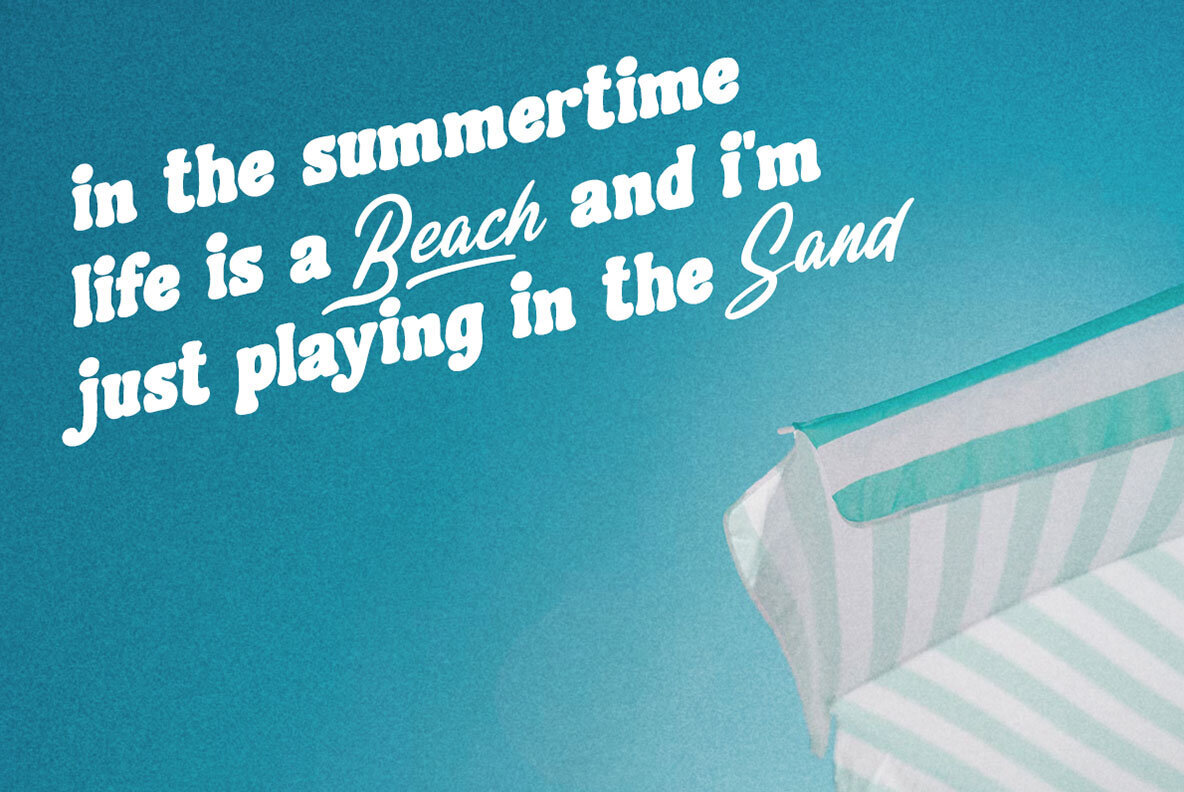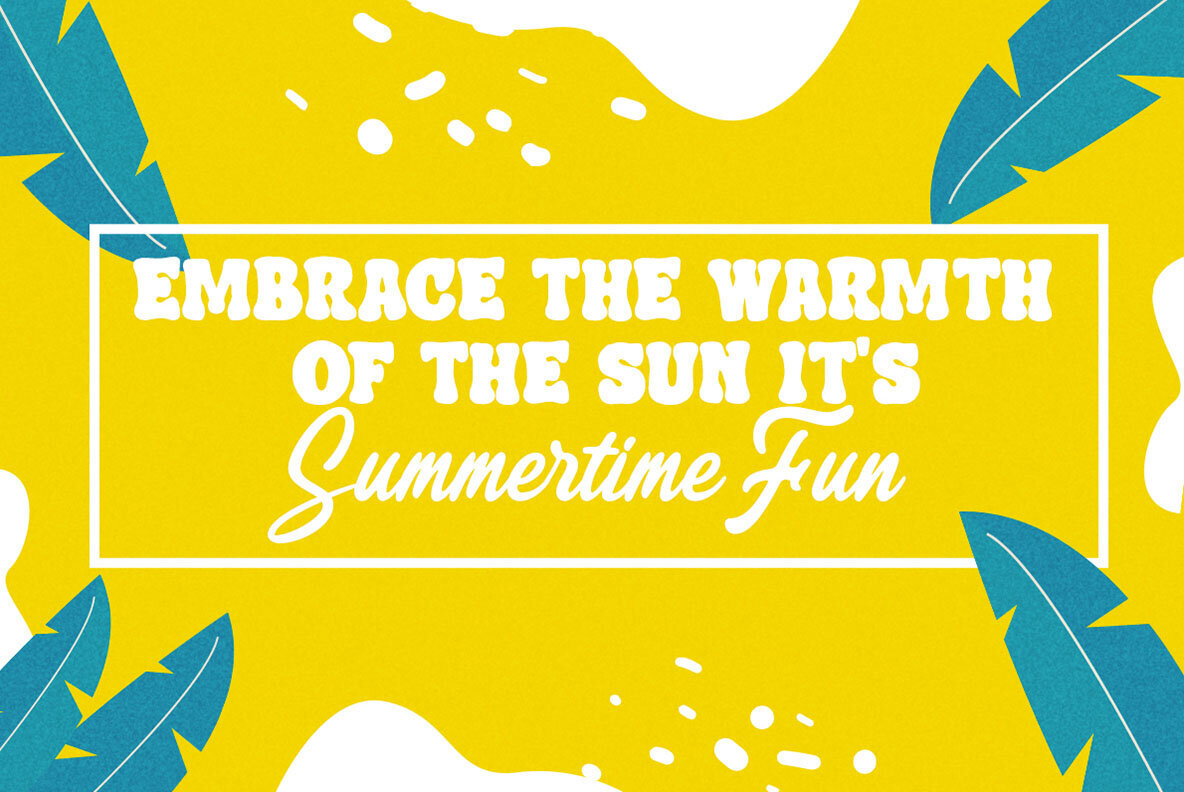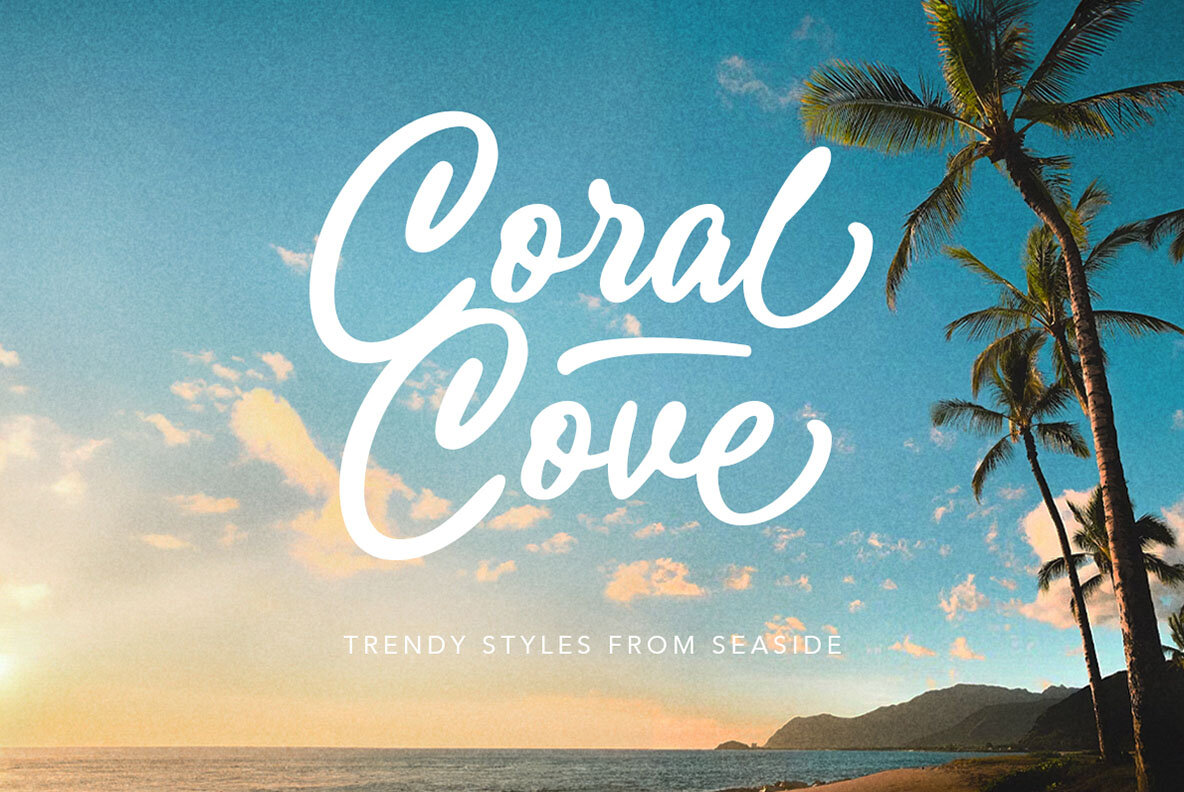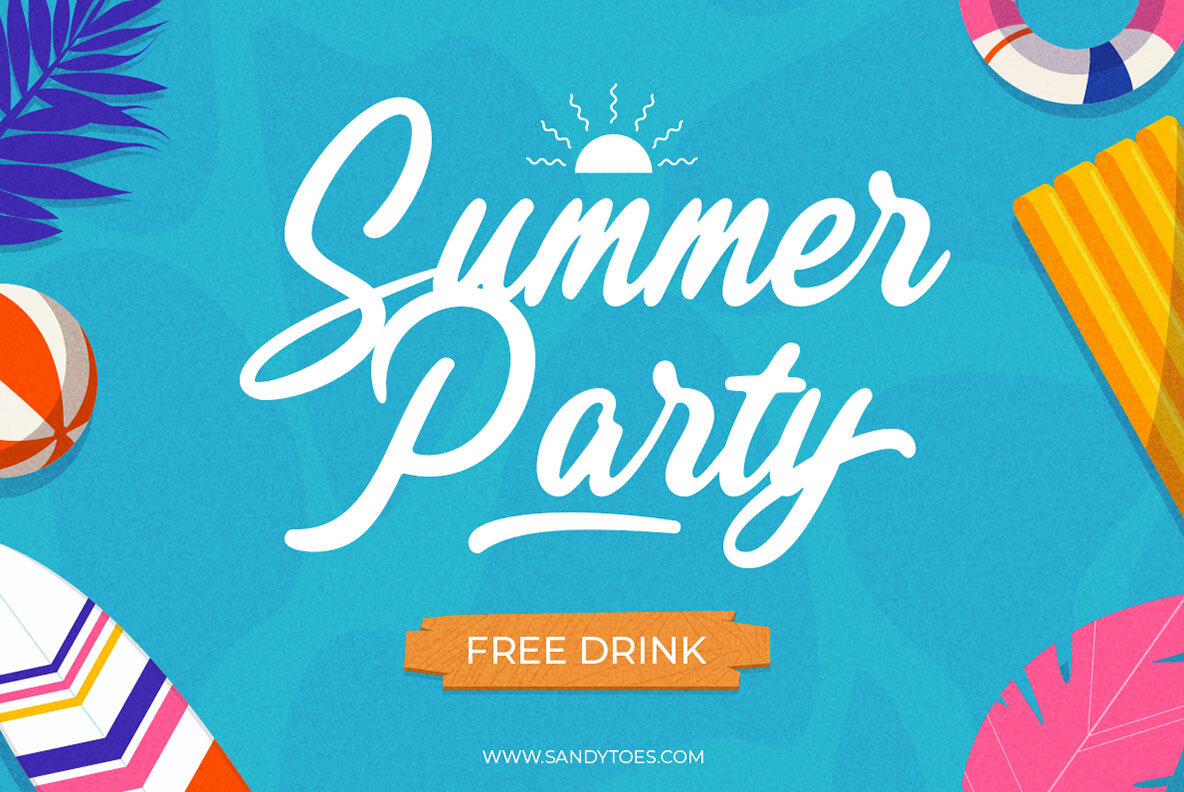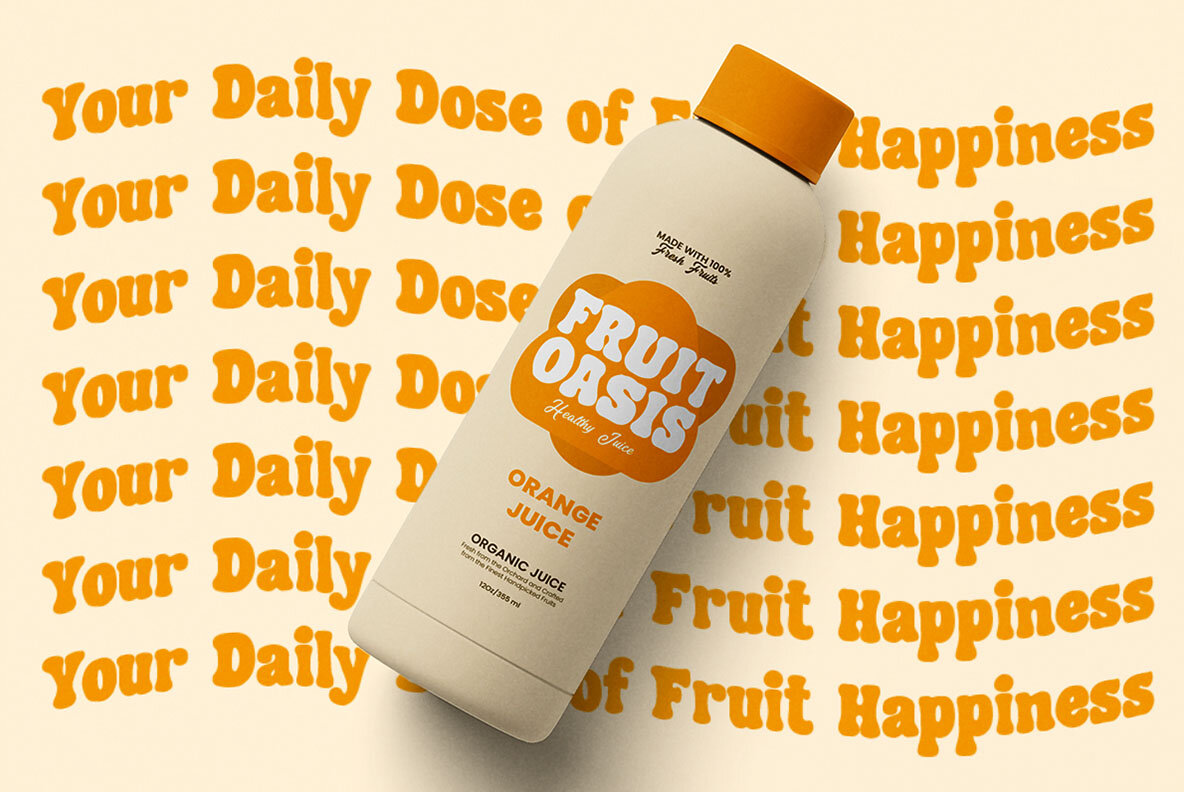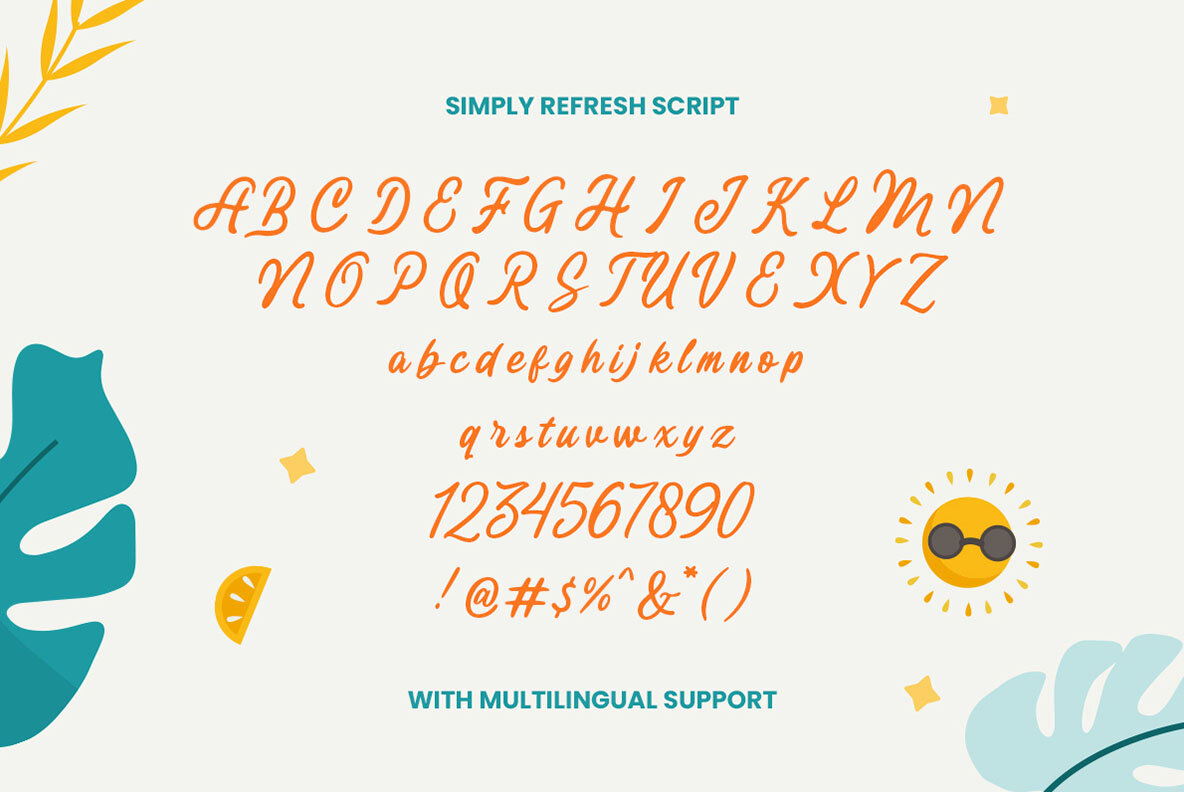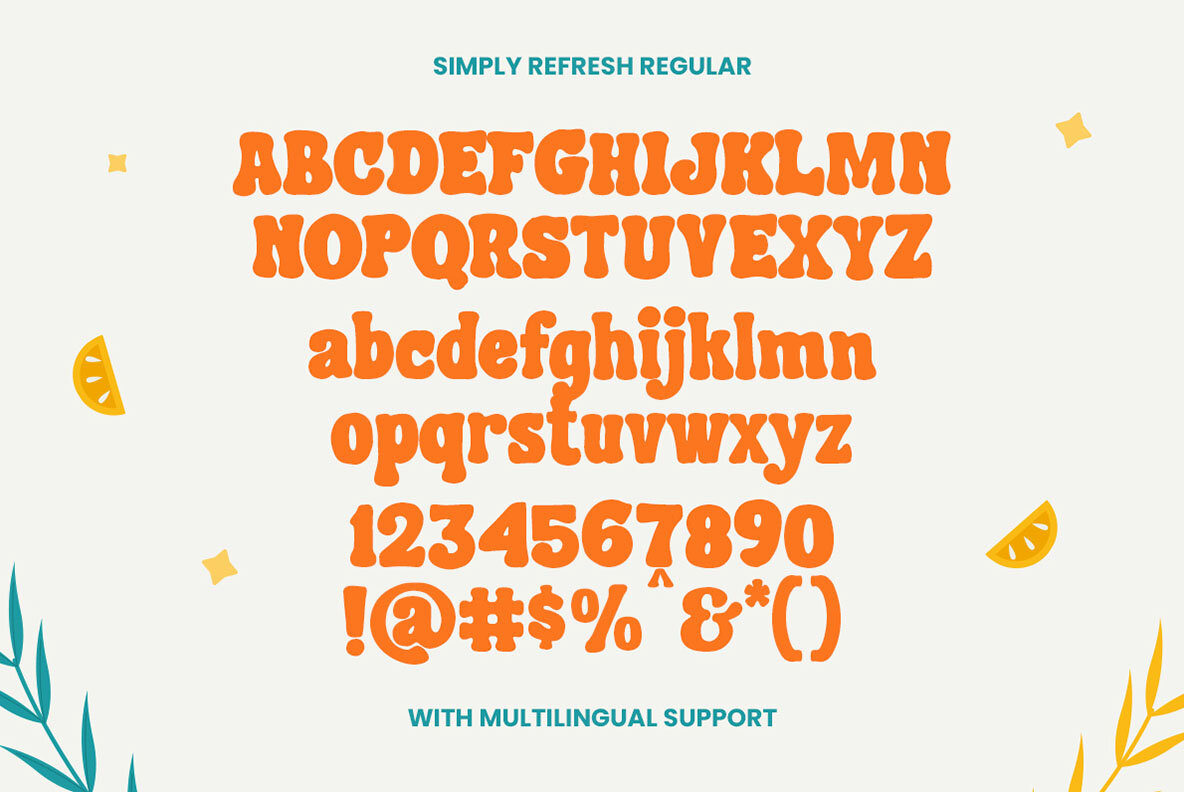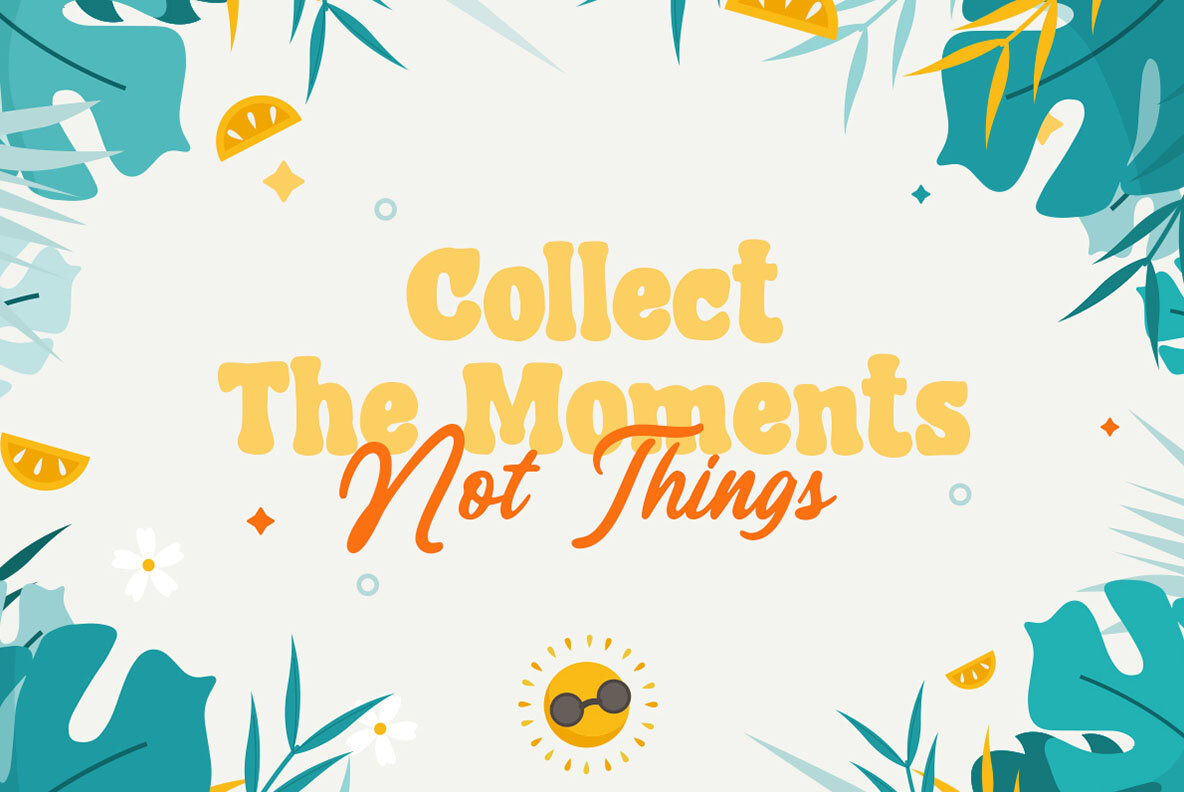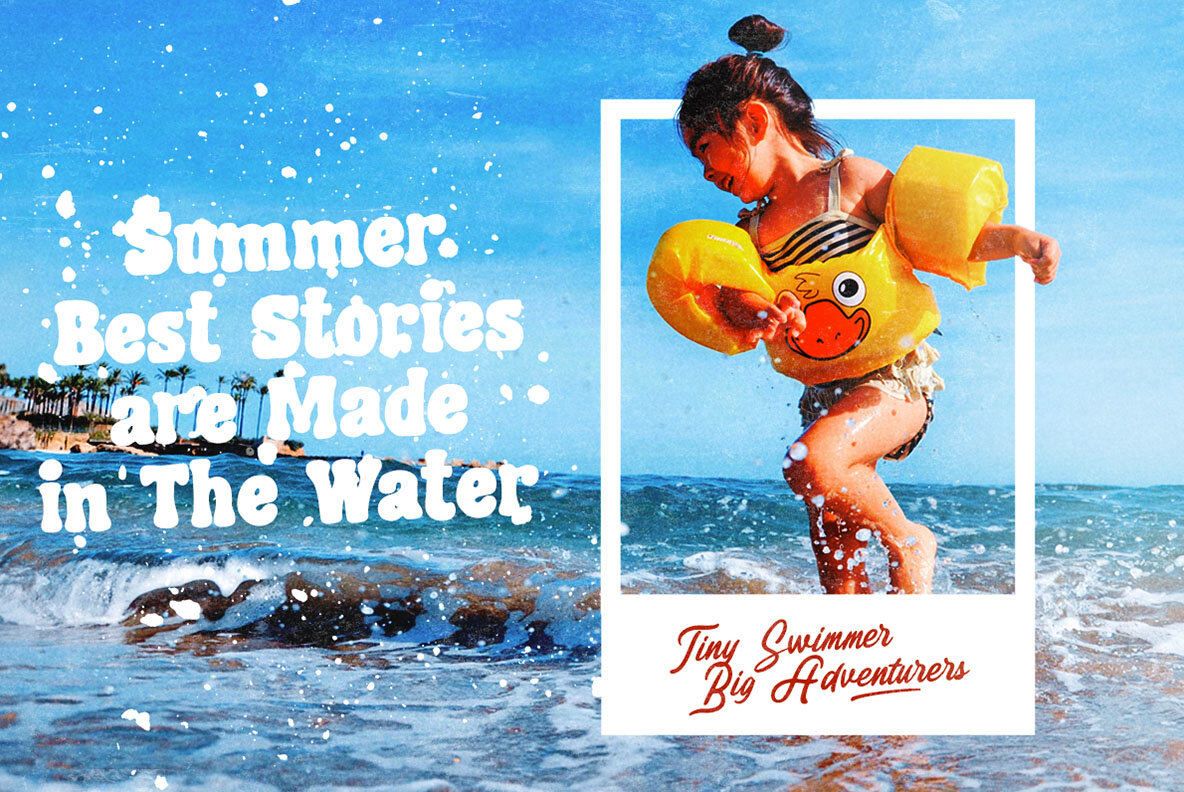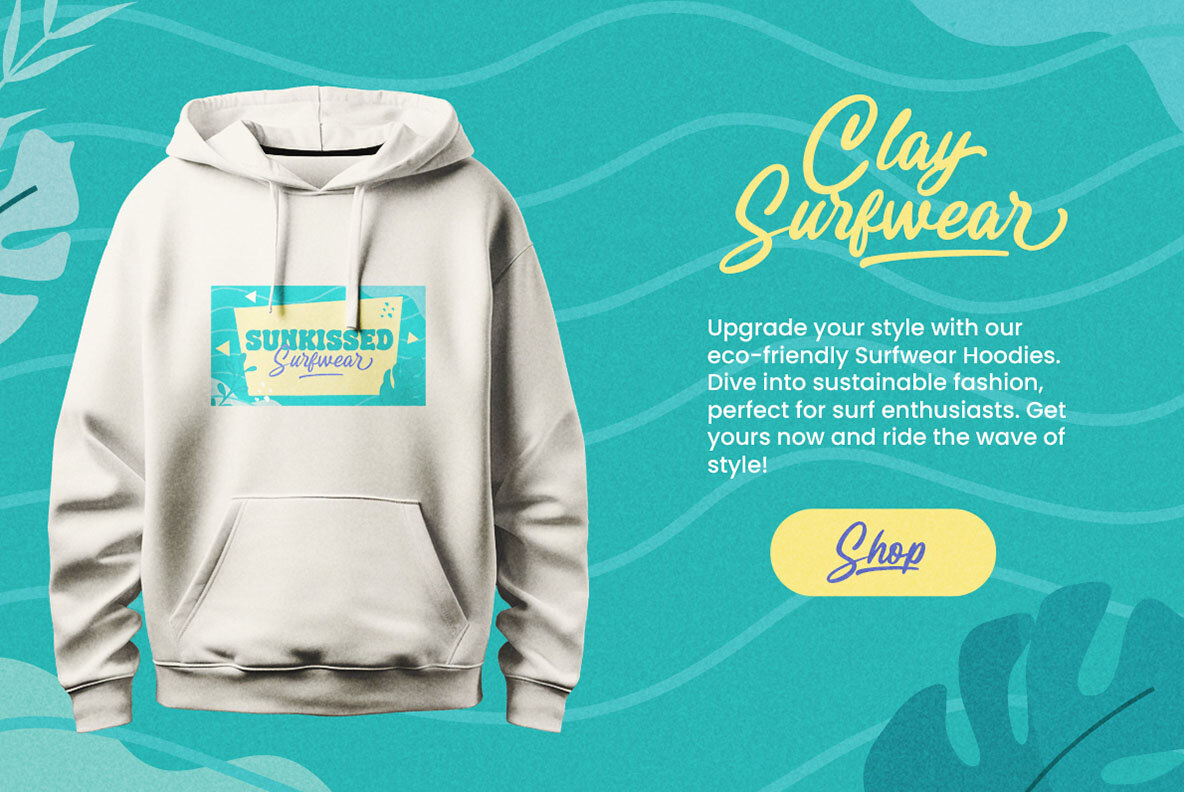
Simply Refresh Font
Simply Refresh is a playful display serif font with other style- script. its unique letterforms and charming character, whether you're creating children's illustrations, packaging, or social media graphics, Bunny Galore brings personality and vibrancy to your designs, making them visually captivating and engaging.